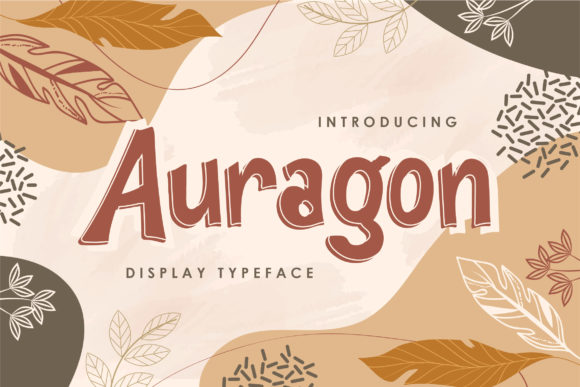
Introducing Auragon Font: The Bold and Vivacious Display Font That Will Ignite Your Creativity
Welcome to the world of Auragon Font, a captivating display font that exudes fun, quirkiness, and undeniable chic. Designed by the talented Vunira, Auragon is not merely a font; it's a creative catalyst that will elevate your designs to new heights.
With its playful personality and eye-catching style, Auragon is perfect for headlines, posters, logos, branding, social media graphics, and any project that demands attention. Its bold and assertive presence will make your words leap off the page, grabbing your audience's attention and leaving a lasting impression.
But Auragon is far more than just a pretty face. It's a versatile performer that effortlessly adapts to a wide array of creative concepts. Whether you're aiming for a playful and whimsical tone or a bold and sophisticated look, Auragon seamlessly molds to your vision, bringing your ideas to life with remarkable flair.
With Auragon at your fingertips, your options are limitless. Unleash your imagination and create designs that sparkle with personality. From vibrant posters that demand attention to elegant logos that exude professionalism, Auragon is your trusty companion, ready to transform your creative dreams into tangible masterpieces.
But what sets Auragon apart from the myriad of fonts clamoring for your attention? It's the intricate details, the subtle nuances, and the boundless possibilities that make Auragon truly exceptional. Each character is meticulously crafted, imbued with a unique charm that dances across your designs, captivating your audience and leaving them spellbound.
And with its PUA encoding, Auragon opens up a world of creative possibilities. Access a treasure trove of alternate characters, ligatures, and swashes, allowing you to add an extra layer of depth and sophistication to your designs. Experiment with different combinations, explore the endless variations, and watch as your creations take on a life of their own.